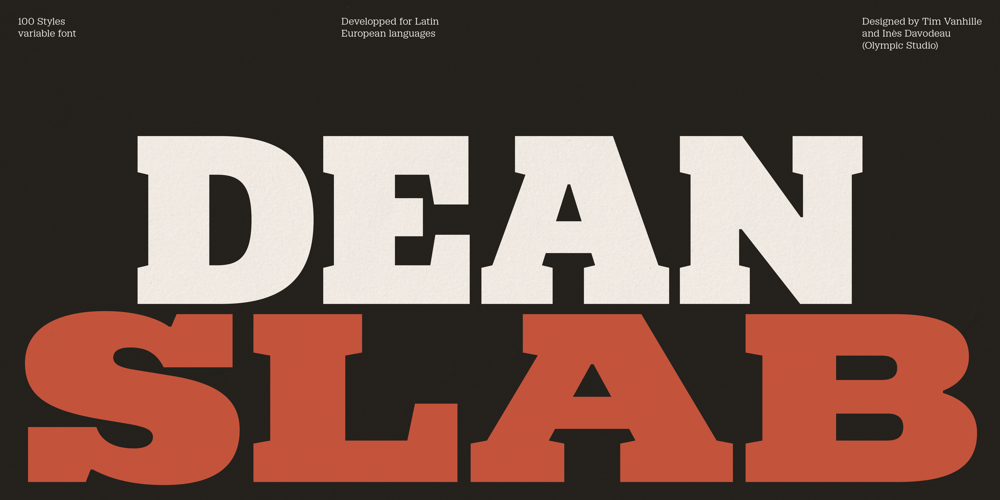
Dean Slab Font Family was designed by Tim Vanhille and published by Blaze Type. Dean Slab contains 100 styles and family package options. The Dean family is a vibrant tribute to the musical and cinematic culture of mid-20th century America. These typefaces, rooted in the legacy of wood types and period posters, reflect an era of intense creativity when design served as the voice of a culture in full swing.With its two subfamilies, Slab and Gothic, and a total of 200 styles, Dean is far more than just a typeface, it’s a creative tool that transcends time and usage, paying homage to the energy and freedom of a pivotal moment in American cultural history.The Dean Slab preserves the authenticity of historical forms while introducing a contemporary touch. Its bold serifs and commanding proportions honor the raw energy of posters and advertisements from that era. It’s a typeface that embodies the strength and singularity of the American heritage, while being perfectly attuned to modern sensibilities.And because the Dean family wouldn’t be complete without its other face, Dean Gothic offers a sans-serif version.